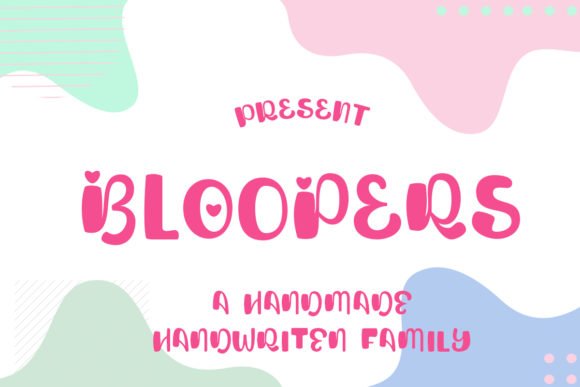
Get Ready to Delight with the Bloopers Font
Have you ever been brainstorming a new design project, and suddenly, a burst of creativity strikes? Maybe it’s the idea of a whimsical children’s book cover or a playful advertisement for a kid-friendly brand. Whatever it is, the spark of inspiration is what drives us as designers to create something truly special.
That’s where the Bloopers Font comes in – a charming, display font that’s perfect for bringing a touch of joy to your designs. This delightful font is designed specifically with children’s themes in mind, and when paired with vibrant colors, it’s sure to capture the attention of your young audience. As a designer, having access to versatile and engaging fonts like Bloopers Font can be a game-changer for your creative projects.
- Unique Characteristics: Bloopers features a bold, playful, and energetic design with a rounded sans-serif style, making it ideal for titles, headings, and display text.
Bloopers Font Review
At first glance, Bloopers Font caught my eye with its playful, childlike vibe. It’s a great choice for projects that need a touch of whimsy and fun. ✨ The font’s rounded edges and bubbly feel make it perfect for children’s books, educational materials, or any design that requires a lighthearted tone.
One of the things I like about Bloopers Font is its versatility. It comes in a range of weights and styles, making it easy to use for both headings and body text. The font also supports a wide range of languages, which is a big plus for international projects.
While Bloopers Font is a great choice for many projects, there are some limitations to consider:
- ⚠️ The font can be a bit overwhelming when used in large blocks of text. It’s best used in moderation, with headings and highlights to break up the text.
- ⚠️ The font’s playfulness can also make it difficult to use in more serious or formal projects. It’s best suited for projects with a lighthearted or humorous tone.
Overall, Bloopers Font is a fun and versatile choice for designers who want to add a touch of whimsy to their projects. With its range of weights and styles, it’s a great option for a wide range of applications.